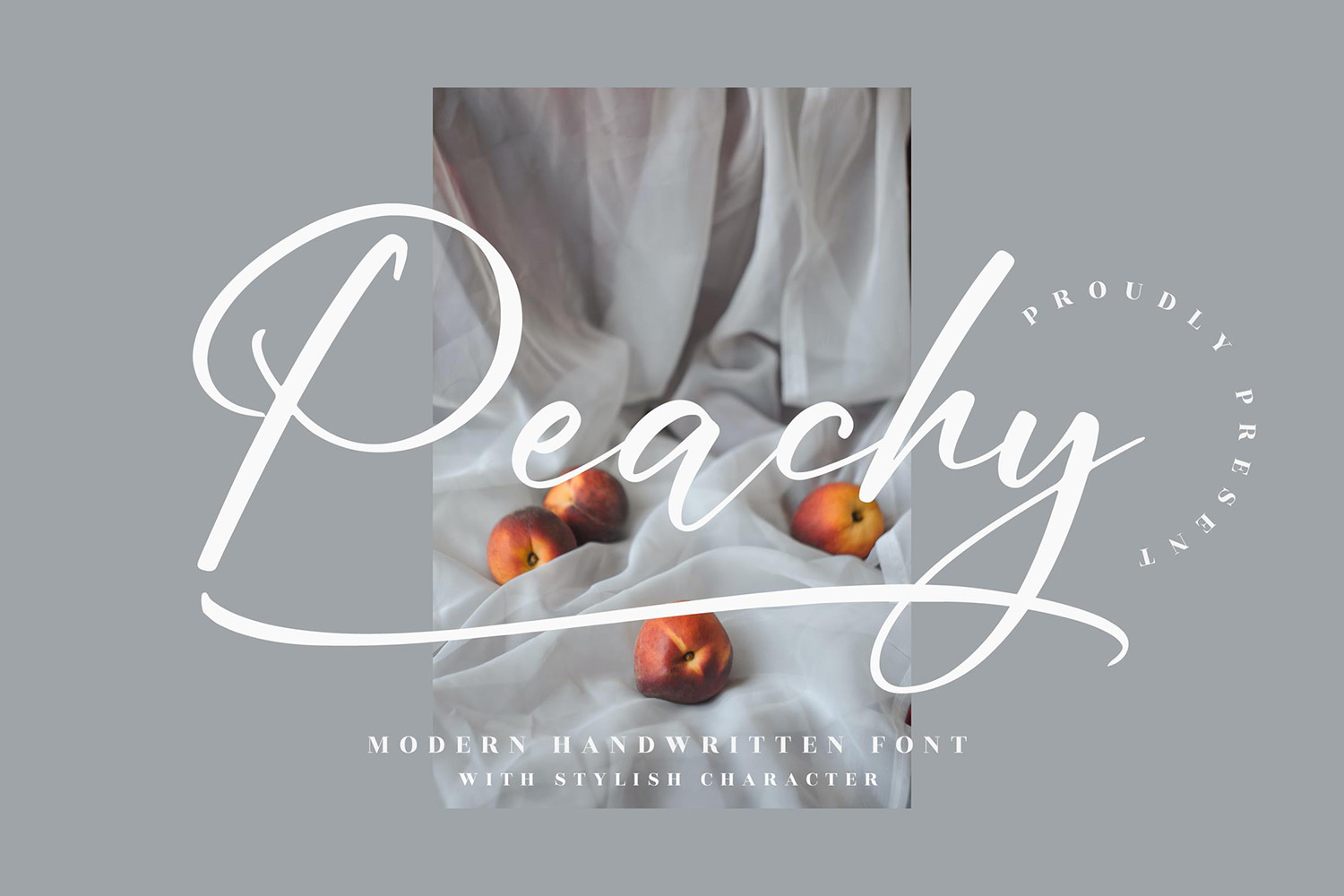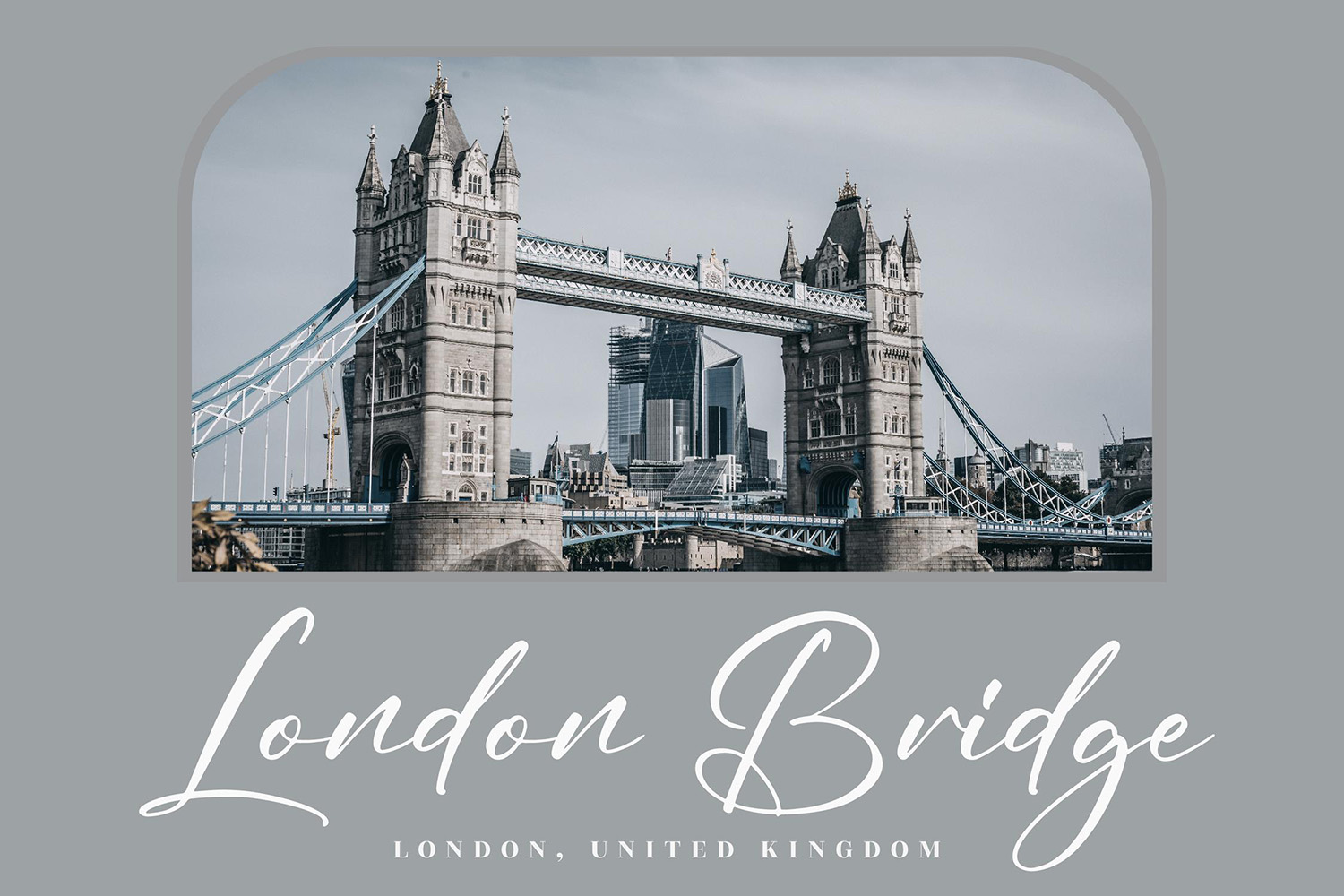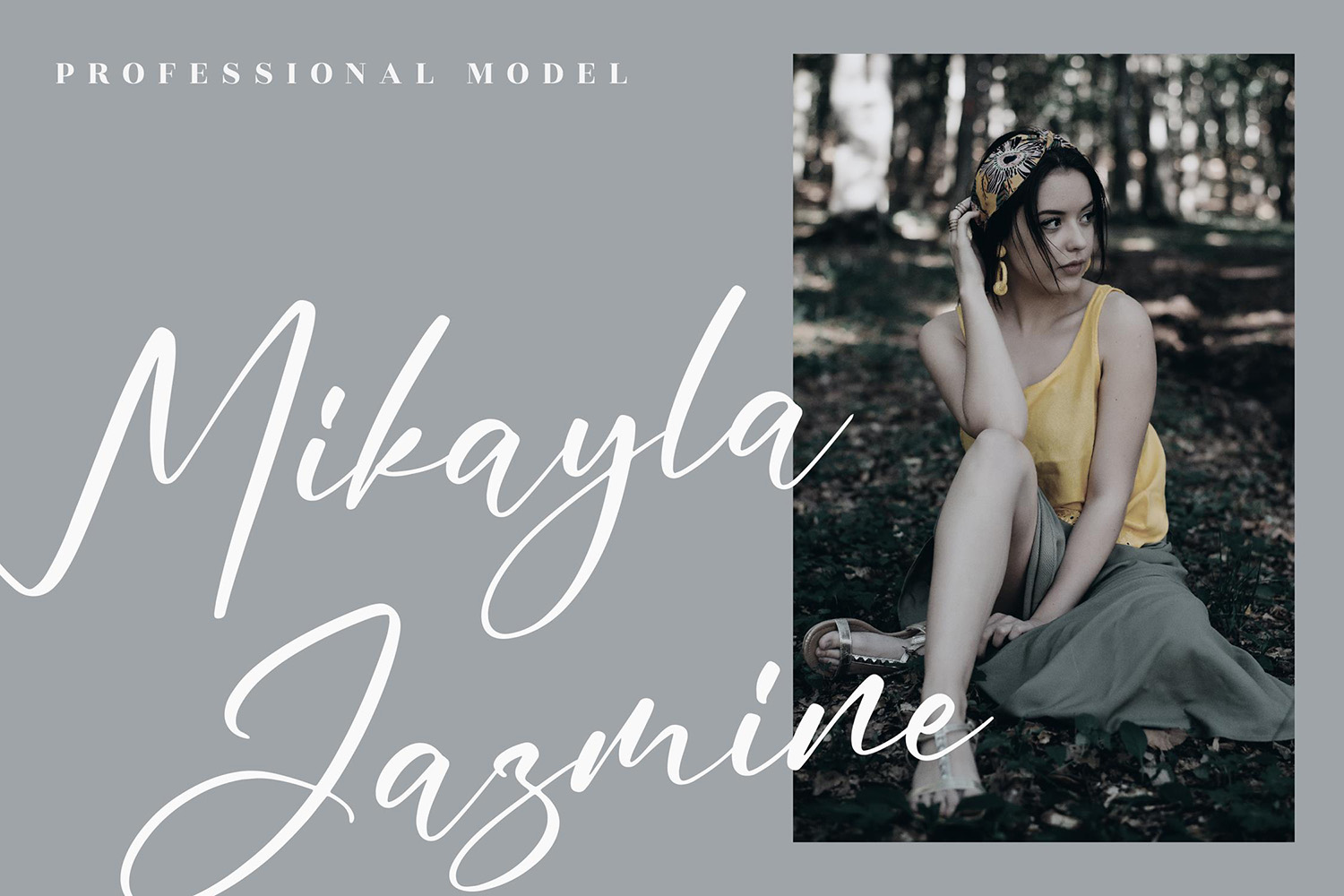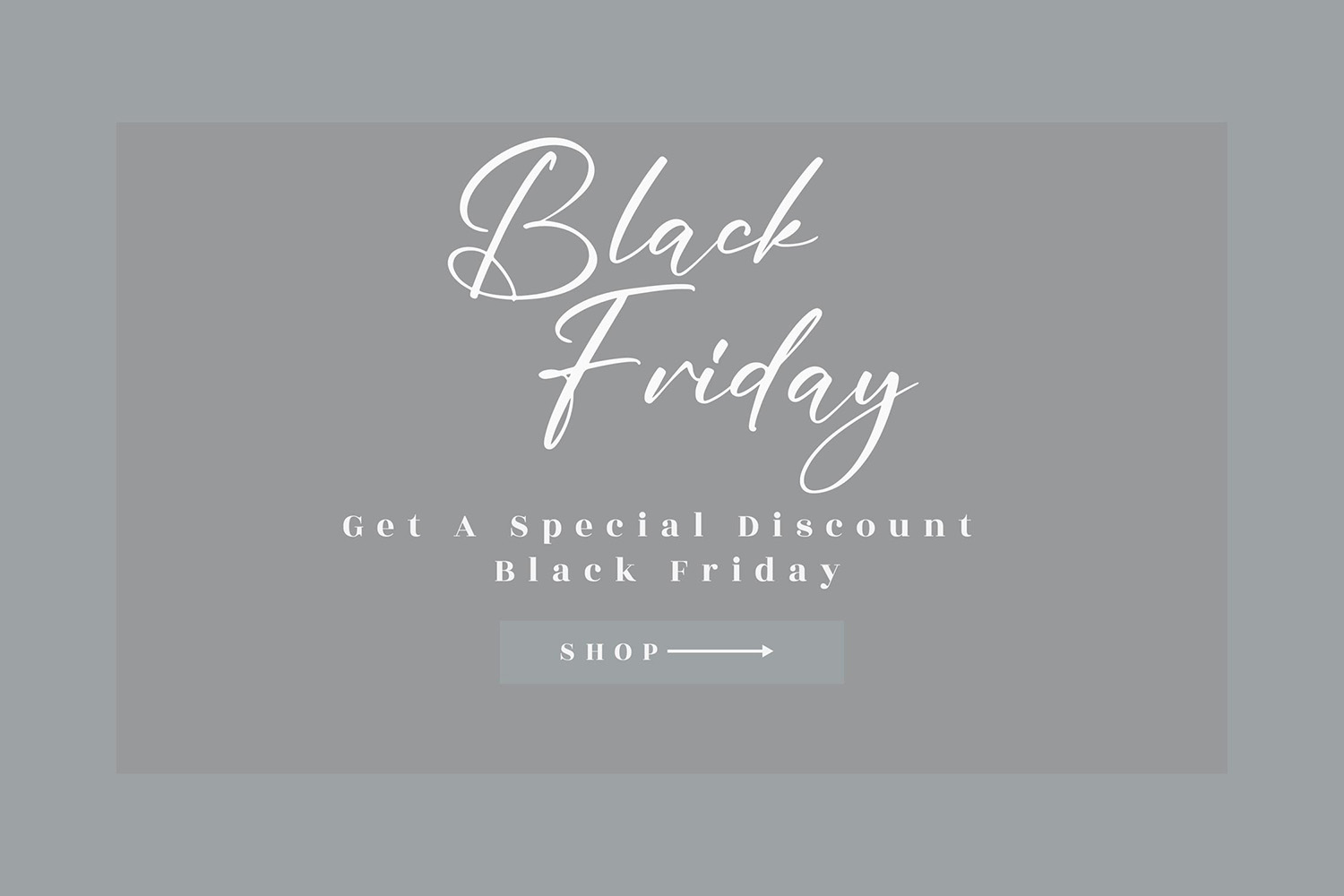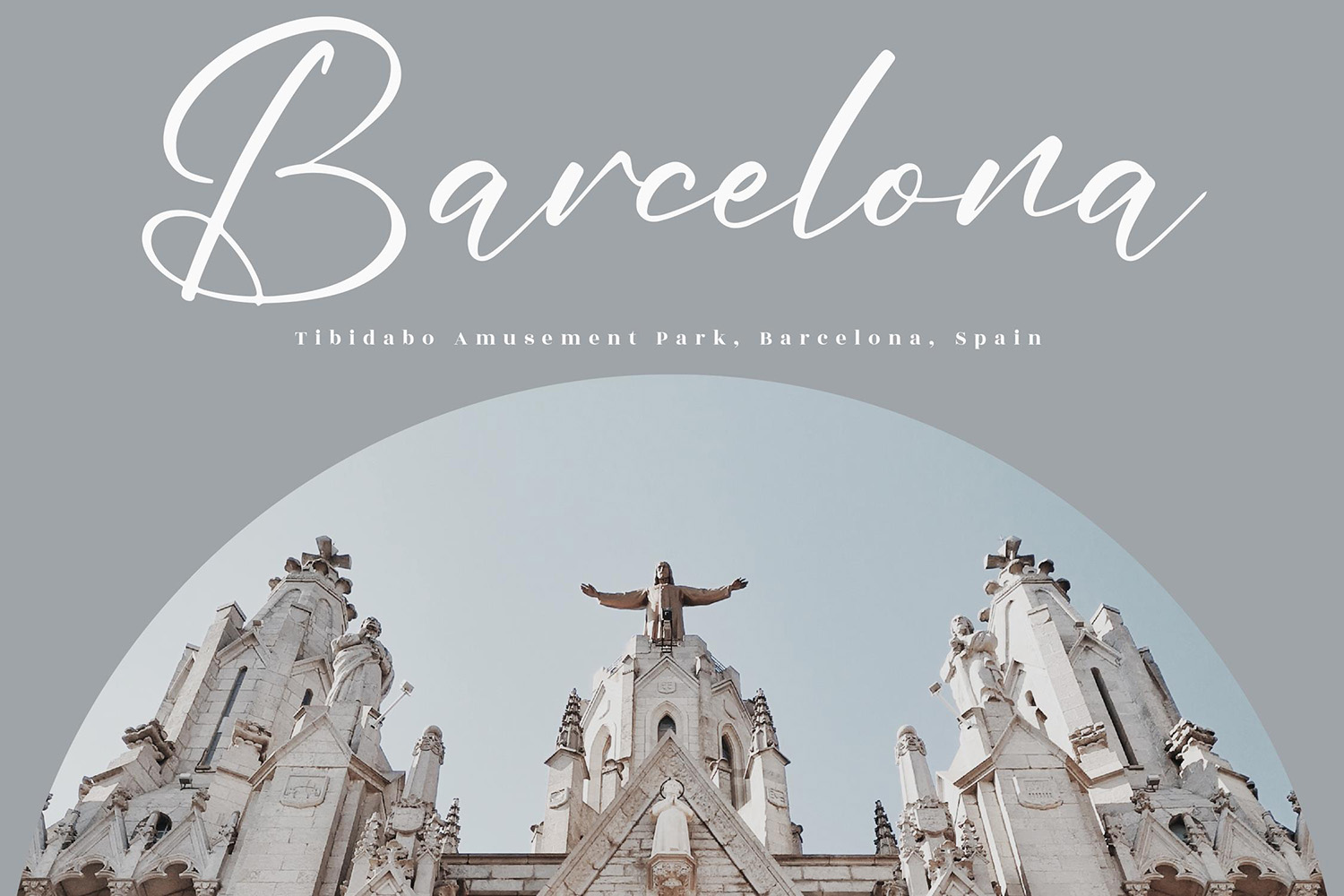
Peachy Free Font
Discover Peachy Free Font, a graceful calligraphy typeface characterized by its flowing and d elicate nature, as its characters elegantly dance along the baseline. Infuse a touch of luxury into your design projects with Peachy, elevating every creation you embark upon. This free typeface was designed by a talented Glorytype Studio. If you like it don’t forget to check out the full version.